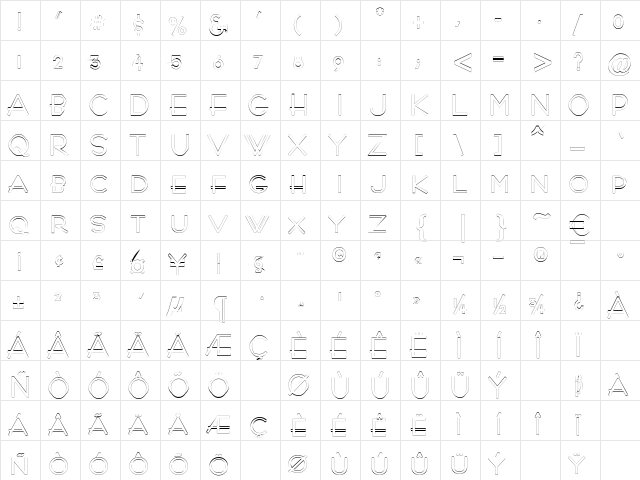
RamoseCapsOutline Regular
Design Context for RamoseCapsOutline Typeface
RamoseCapsOutline is built around its visual character rather than neutral utility — its distinctive forms are designed to make an impression at display sizes.
Font Pairing: Pair with a clean neutral sans-serif for body copy to let RamoseCapsOutline's character lead without overwhelming the composition.
Pro Tip: Treat RamoseCapsOutline as the centrepiece of your typographic hierarchy. One strong heading set in a decorative face can carry an entire layout.